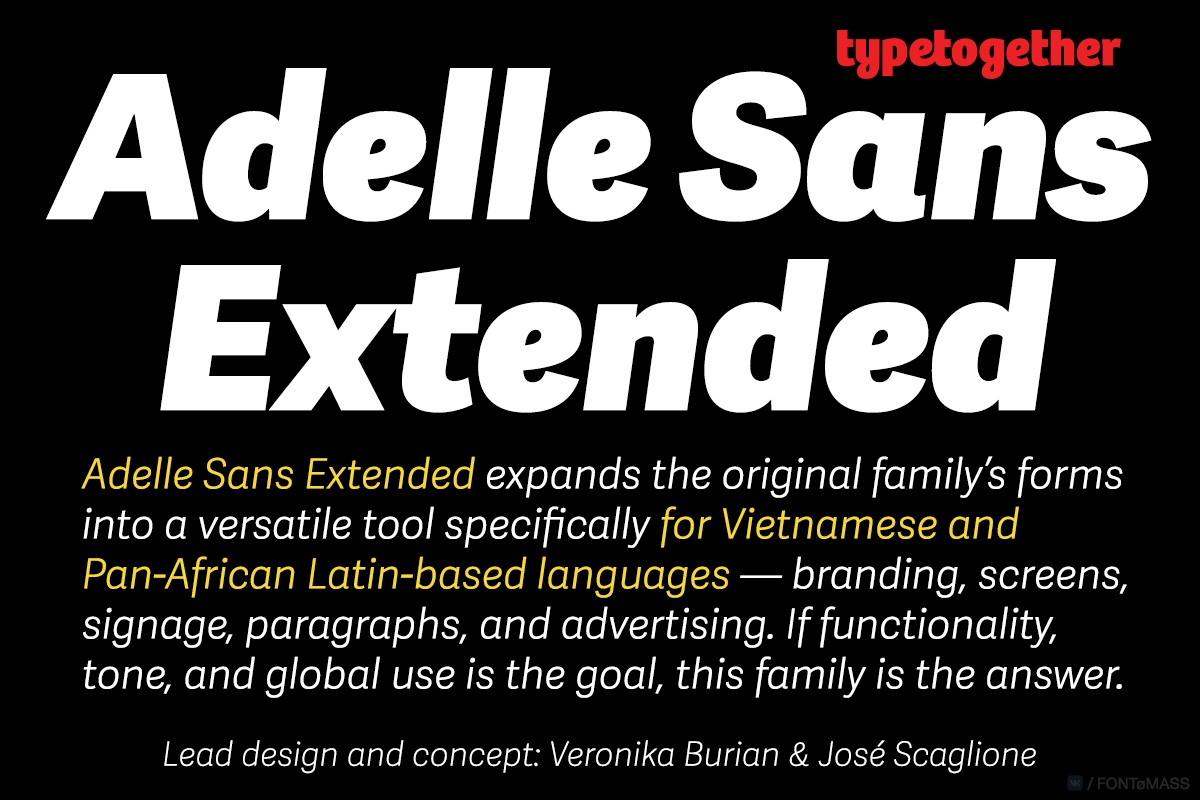
Adelle Sans Extended Font
This versatile typeface is perfect for corporate annual reports, professional presentation materials, modern business documentation, executive communication layouts, financial services branding, contemporary website interfaces, clean marketing campaigns, and sophisticated editorial designs. Adelle Sans Extended Font delivers exceptional functionality in applications where professional clarity and extended character support are essential for international business communications and comprehensive typographic systems.
What makes Adelle Sans Extended Font so exciting is its masterful combination of humanistic warmth with geometric precision across extensive language support. The font features carefully balanced letterforms with subtle personality details that maintain professional appeal while ensuring exceptional readability in extended text applications. Each character has been meticulously crafted to perform consistently across multiple languages and writing systems, making it invaluable for global businesses requiring comprehensive typographic solutions. The typeface's versatile nature allows seamless adaptation from corporate environments to creative applications, ensuring consistent brand presentation across diverse international markets.
The Adelle Sans Extended Font includes comprehensive weight variations: Thin, Light, Regular, Medium, Semi-Bold, Bold, and Black versions. This extensive collection provides designers with complete typographic flexibility to create sophisticated hierarchies and maintain visual consistency across complex multilingual design systems. Each weight preserves the font's core characteristics of clarity and professionalism while offering distinct emphasis levels for various international communication needs.
Whether you're developing global brand identities, creating multilingual marketing materials, or designing international business presentations, Adelle Sans Extended Font Free Download delivers the comprehensive aesthetic that modern international businesses require. Its professional versatility makes it particularly suitable for multinational corporations, international consulting firms, global technology companies, and cross-cultural organizations. The font's exceptional language support ensures consistent performance across diverse markets and cultural contexts, while its refined appearance builds trust and credibility with international audiences.
This comprehensive typeface represents the gold standard for designers who understand the critical importance of extended language support in effective global business communication strategies.